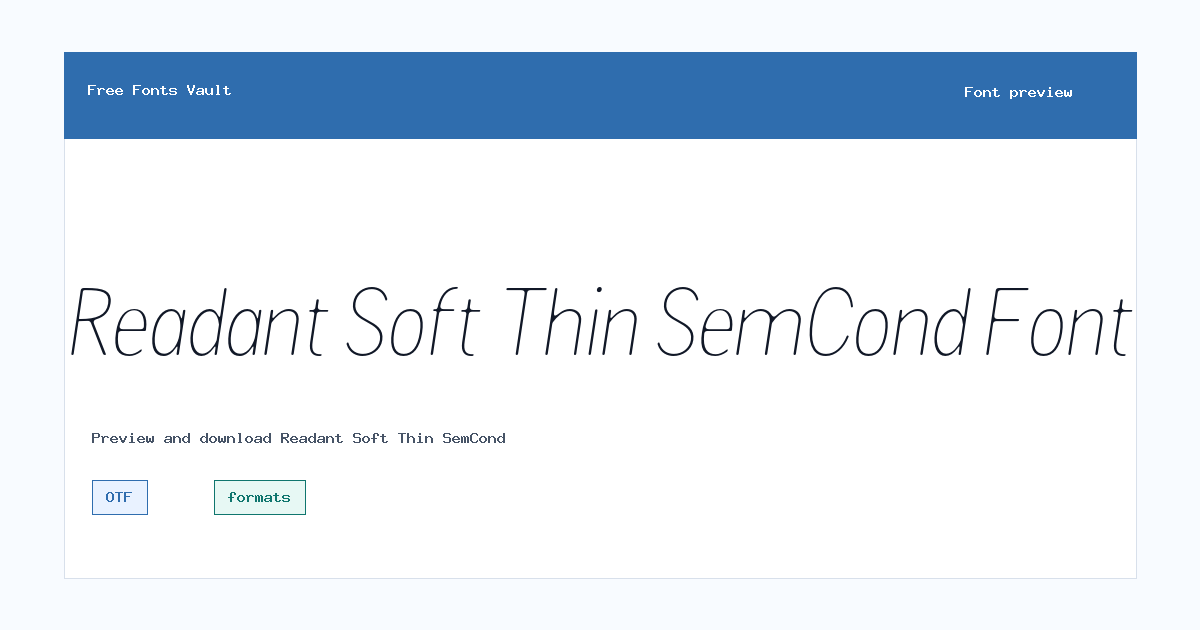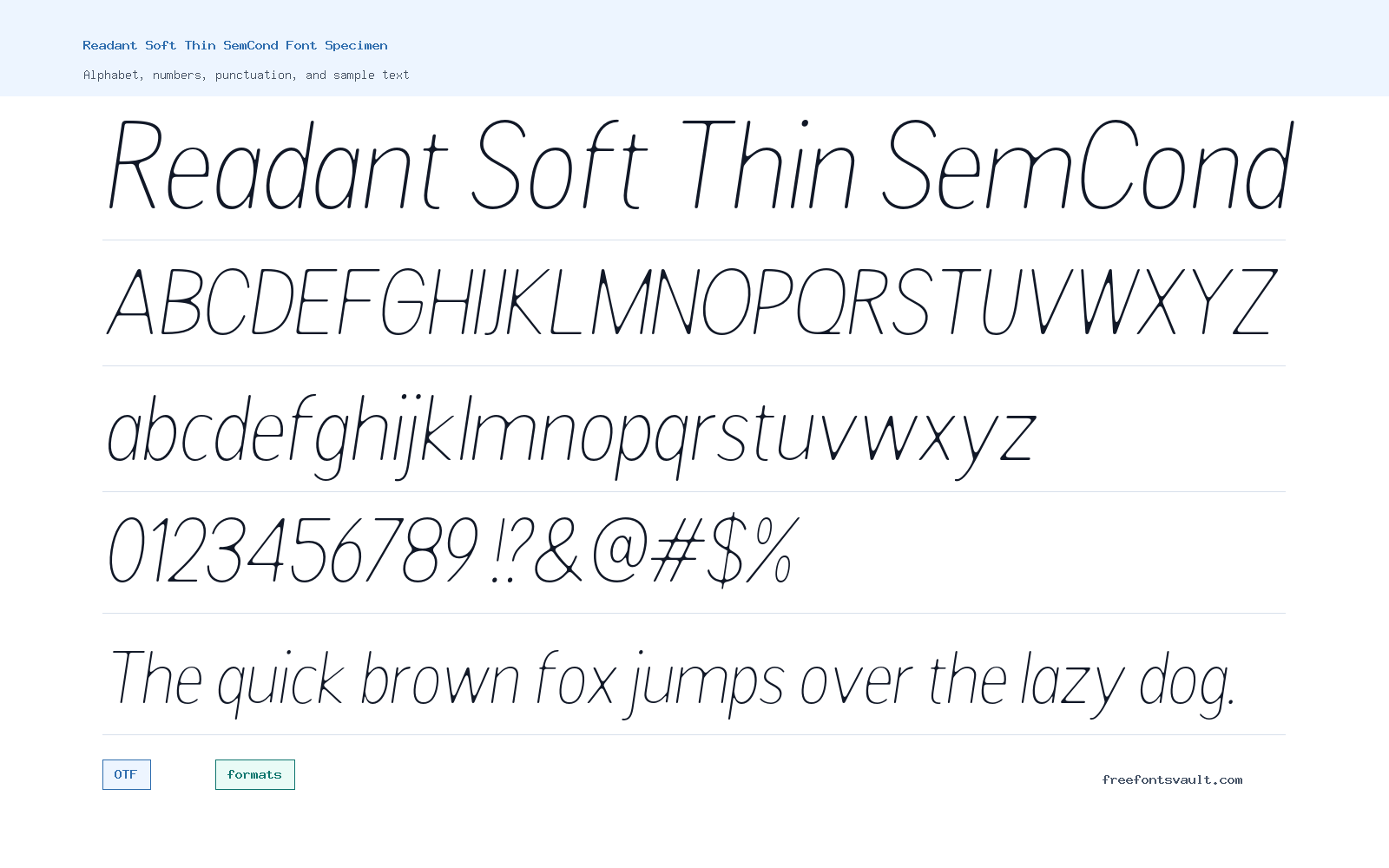
Readant Soft Thin SemCond
Readant Soft Thin SemCond font.
Readant Soft Thin SemCond is a slim semi-condensed sans serif style with a soft, clean texture. It suits visitors who want a light interface-style font for testing headings, labels, and short display text.
About Readant Soft Thin SemCond
Readant is a contemporary humanist sans serif family with open letterforms, balanced proportions, and careful spacing. This cut focuses on the softer, thinner, semi-condensed side of the family, so it gives text a narrow and light appearance without feeling overly sharp. The OTF file set includes one file named as an italic cut and one named as a thin semi-condensed cut.
Because the weight is very light, test it at the exact size you plan to use. Thin semi-condensed fonts can look elegant in large headings, navigation labels, app mockups, poster subtitles, and clean branding drafts, but they may lose strength in small body text or low-contrast color combinations. For longer reading, pair it with a sturdier sans serif or serif that can carry paragraphs while Readant Soft Thin SemCond handles accents and hierarchy.
- Thin 100-weight sans serif styling with a semi-condensed width
- Soft humanist-style appearance suited to clean digital layouts
- Useful for short text, interface labels, headings, and design previews
- Website and app interface mockups
- Minimal headings and section titles
- Navigation labels, dashboard text, and short UI copy
- Posters, presentation slides, and clean branding drafts
What style is this font?
It is a thin, soft, semi-condensed sans serif style from the Readant family.
Where does this style work best?
It works best in short text such as headings, UI labels, menus, presentation titles, and clean layout experiments.
Can I use it for body text?
Use caution. The thin weight may be hard to read in long paragraphs or small sizes, so test it carefully and consider pairing it with a stronger text font.